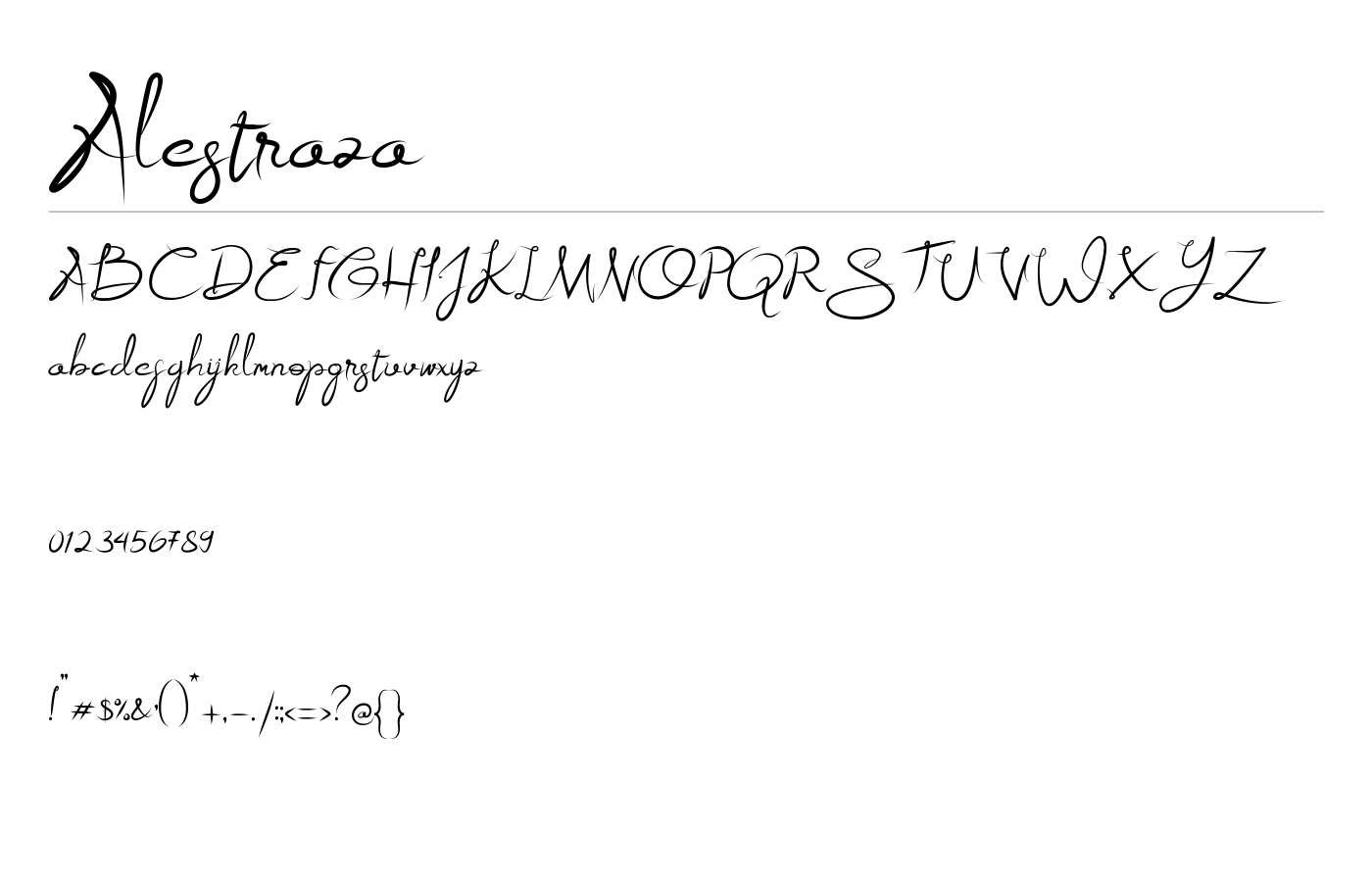
Alestraza is a delicate, handwritten script font characterized by its thin, flowing strokes and elegant, cursive letterforms. With a light weight and tall, graceful letter shapes, it exudes a refined, artistic charm perfect for invitations, branding, and creative projects that seek a personal, sophisticated touch. This font works best in display uses where its unique, airy style can shine and add a sense of elegance and individuality.
Alestraza Font
About Alestraza Font
| Font family | Alestraza Font |
| Designer | Rometheme |